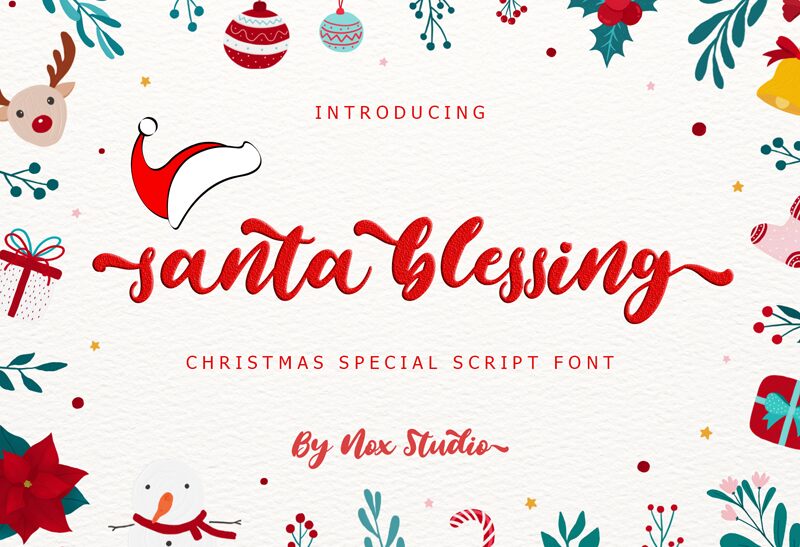
Santa Blessing Script
Santa Blessings Script is an elegant handwriting brush font that is perfect for projects that require creativity and style. It offers smooth characters for a friendly vibe, and can also be used for branding designs, photography captions, logos, quotes, and many other applications. Thanks to Sarif Letter for creating and sharing this font.